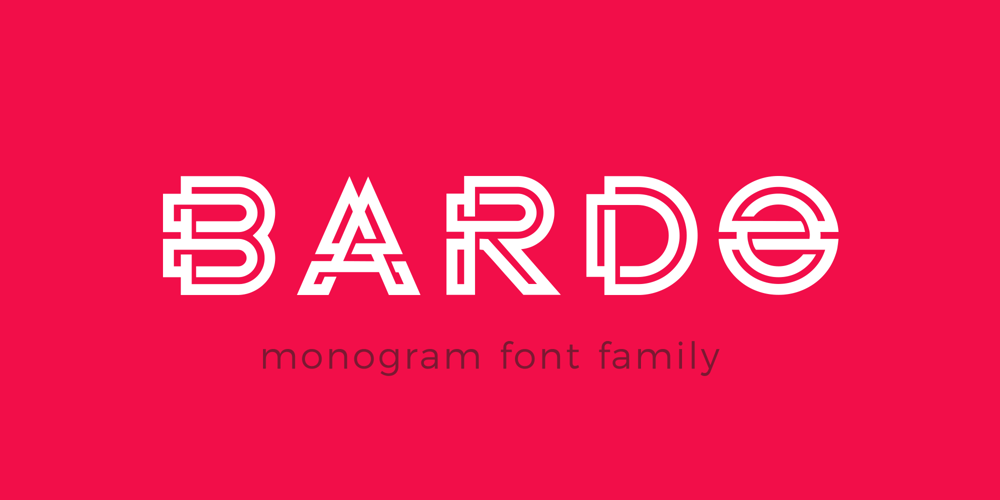
Bardo Font Family was designed by Dmytro Poliakh and published by Sentavio. Bardo contains 3 styles and family package options. Bardo is stylish creative font family useful for creating titles, monograms and logos.It consists of three types: Regular Bold Deco